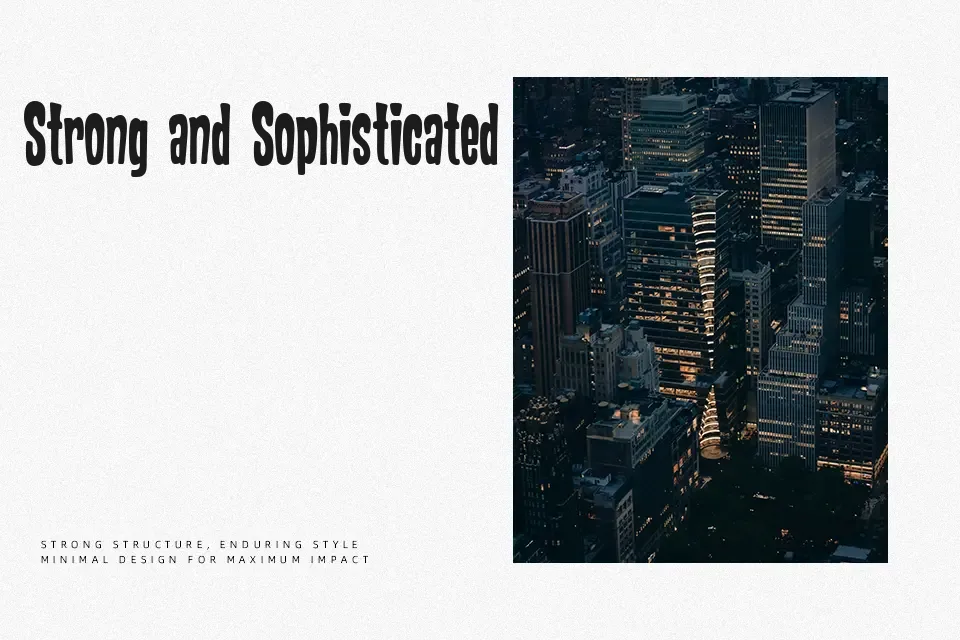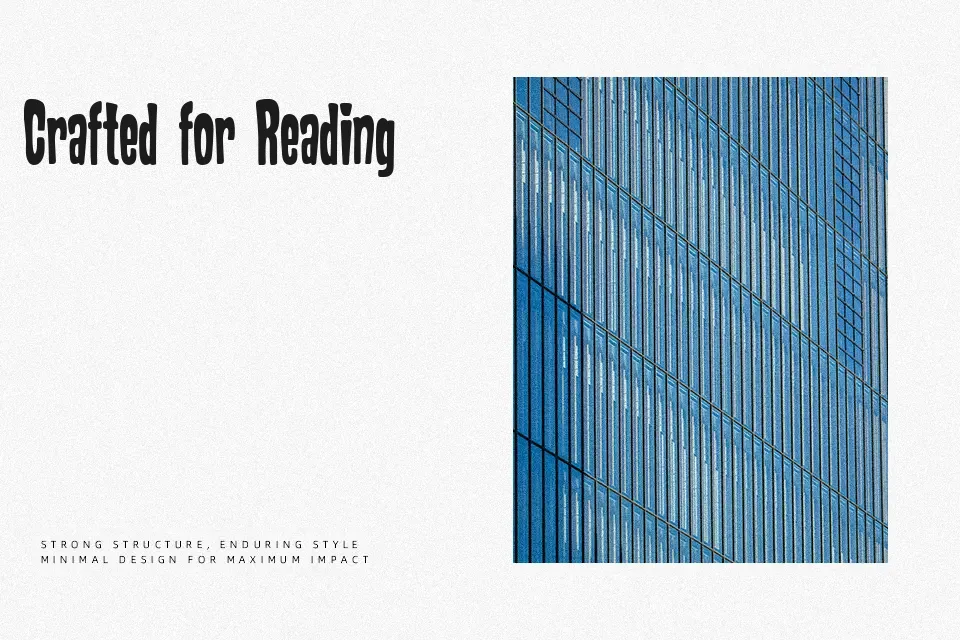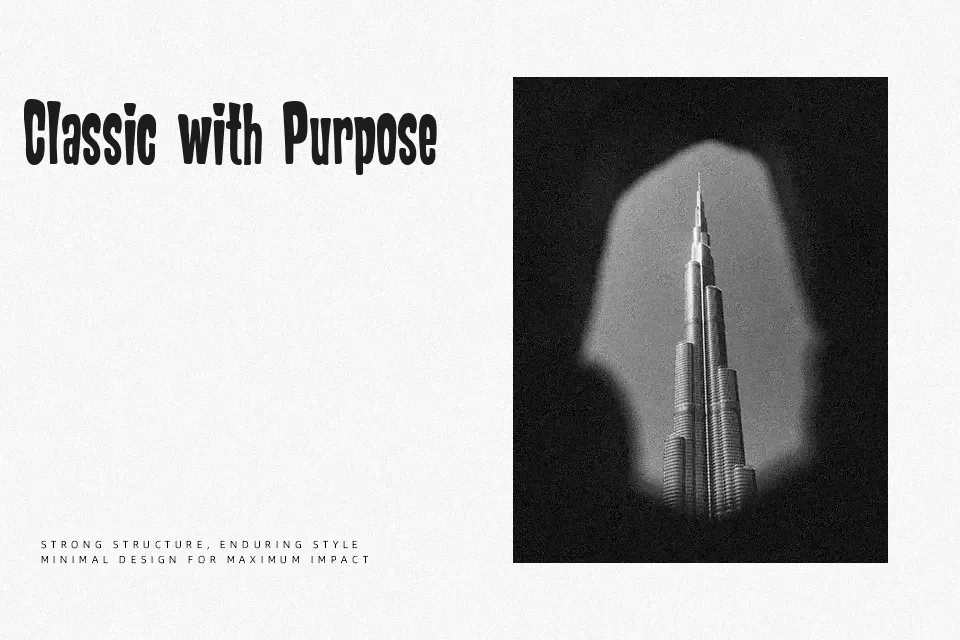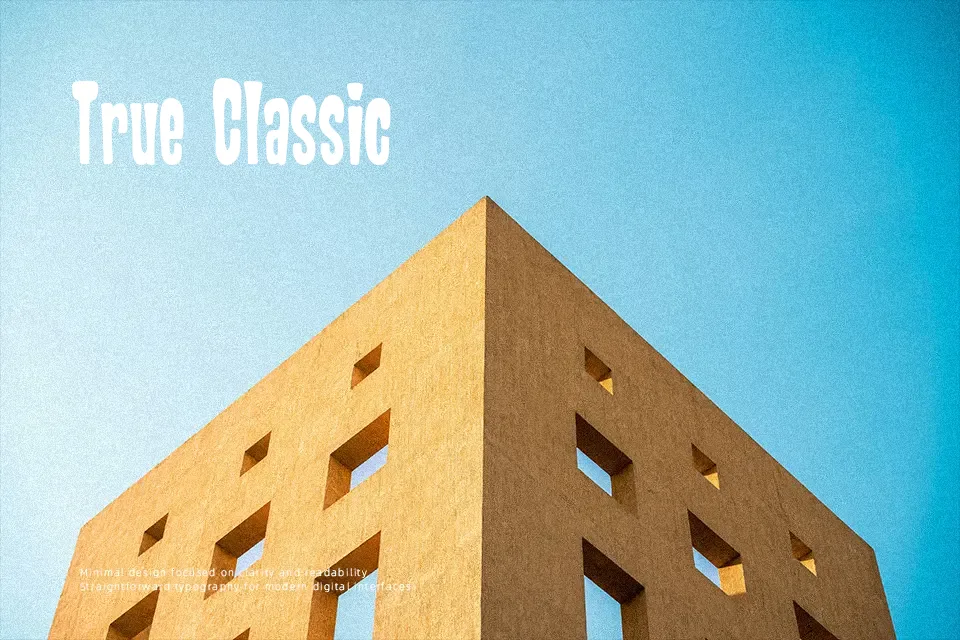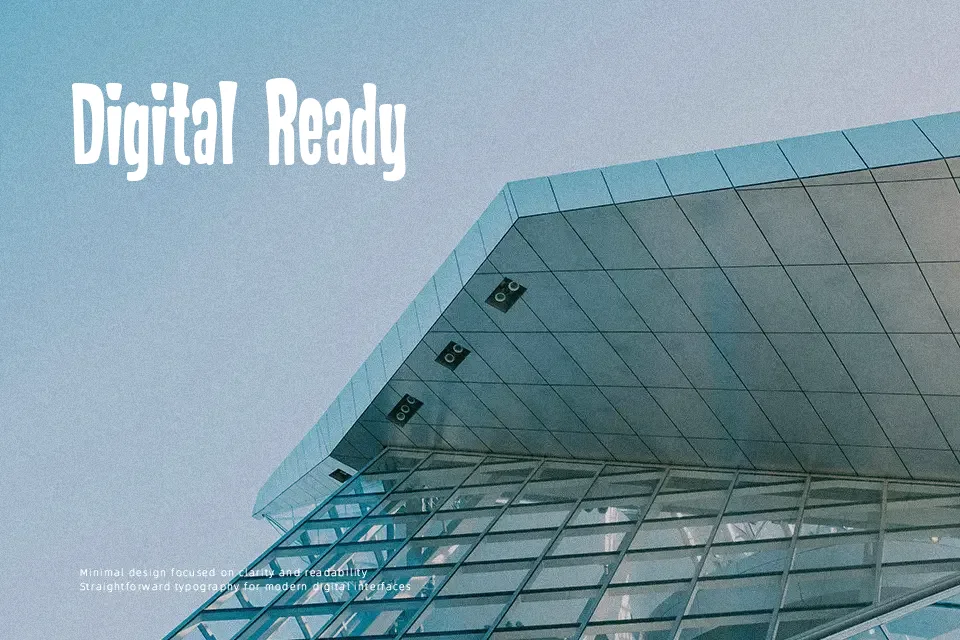
The Island Resort Font
The Island Resort Font delivers an expressive display silhouette characterized by flowing curved strokes, softened corner terminals, and compact inter-character spacing. Proportions remain upright and consistent across the alphabet, producing a distinctive aesthetic that excels in creative titling environments. The typeface performs reliably across travel branding campaigns, casual restaurant signage, and summer event posters where bold titles require personality. However, the condensed layout and decorative contours quickly impair readability when scaled down into multi-line body paragraphs or tiny UI captions. For single-line headers and focal graphics, the design establishes an inviting presence.
Best For: summer event posters,travel merchandise branding,cocktail bar menus,music festival flyers
Not Ideal For: dense editorial paragraphs,mobile application microcopy,formal business documents,spreadsheet data tables
Perfect for branding, headline, and packaging, with a friendly and condensed style.